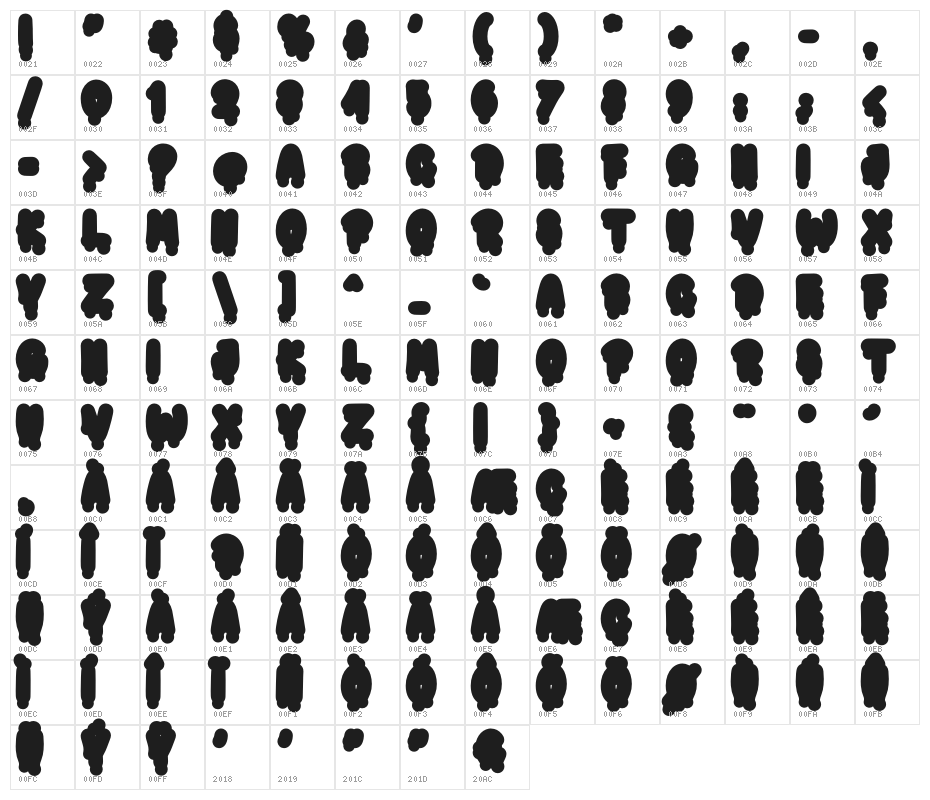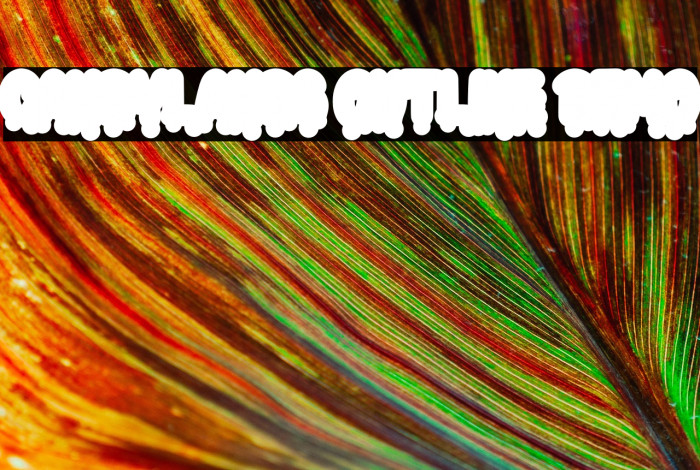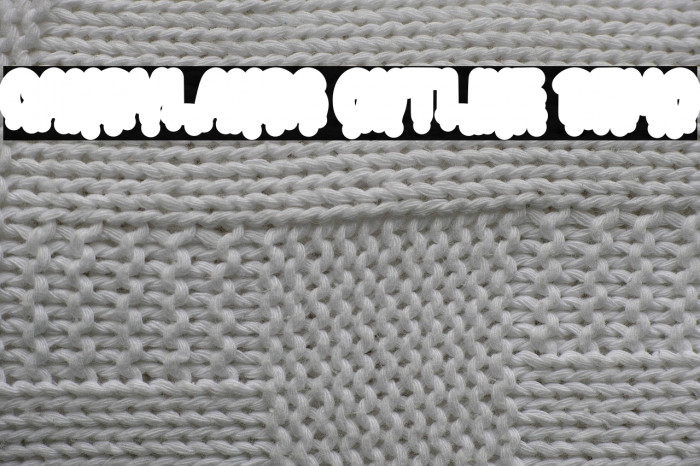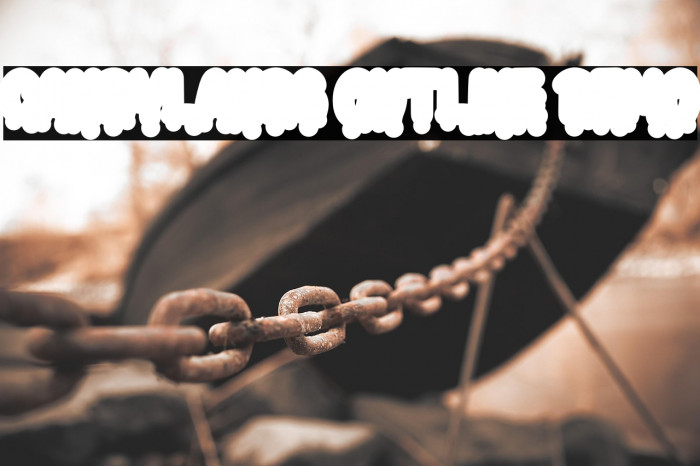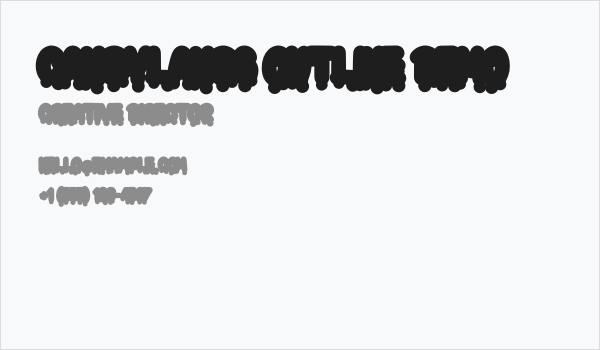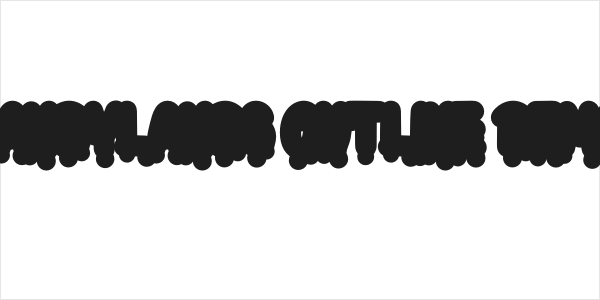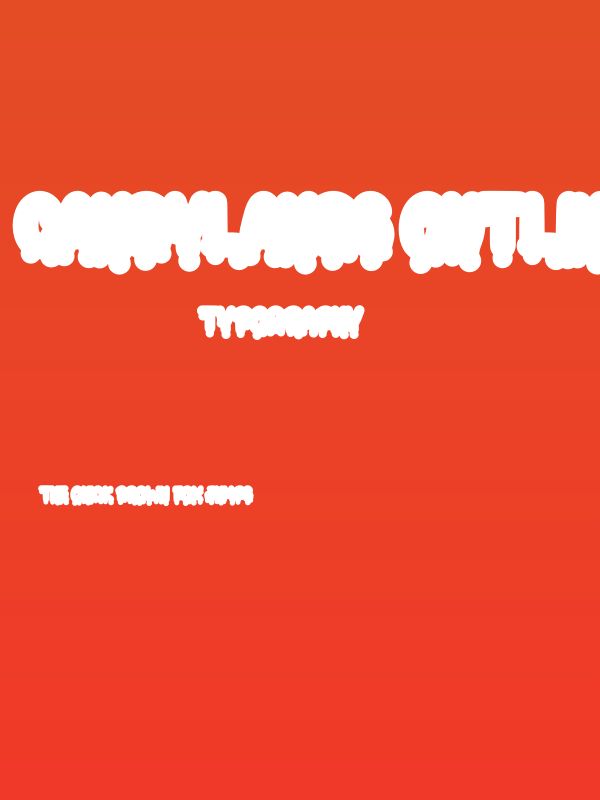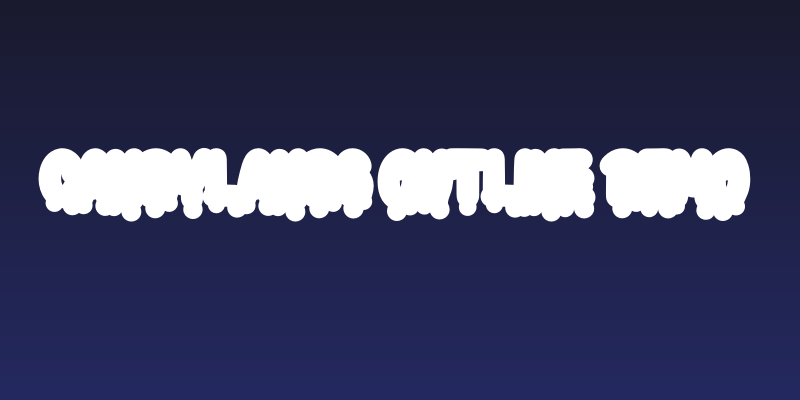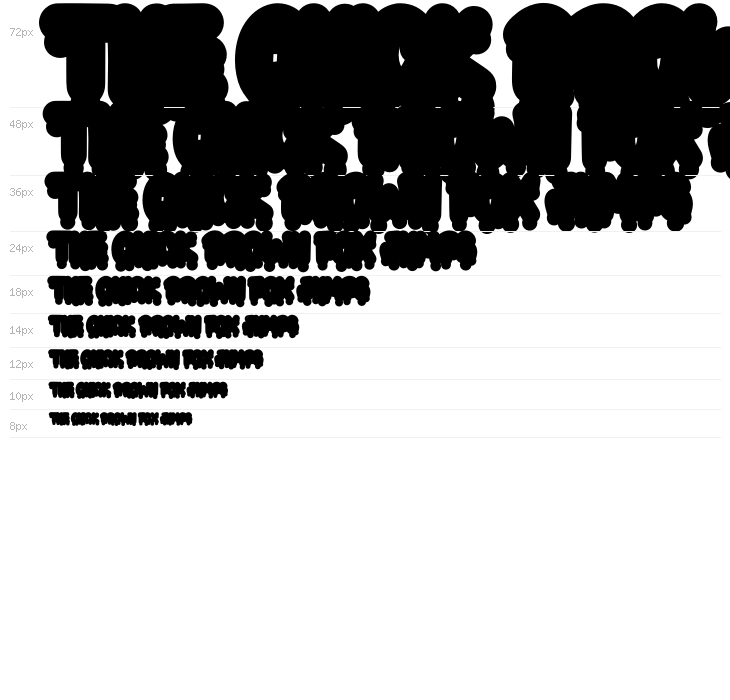
Candylands Outline DEMO Font
| Overall Style | Playful, Decorative, Cartoonish |
| Use Case | Logos, Headlines, Posters, Packaging |
| Proposed Projects | ChildrenΓ’β¬β’s book covers, candy packaging, party invitations, playful branding, posters, signage for kidsΓ’β¬β’ events. |